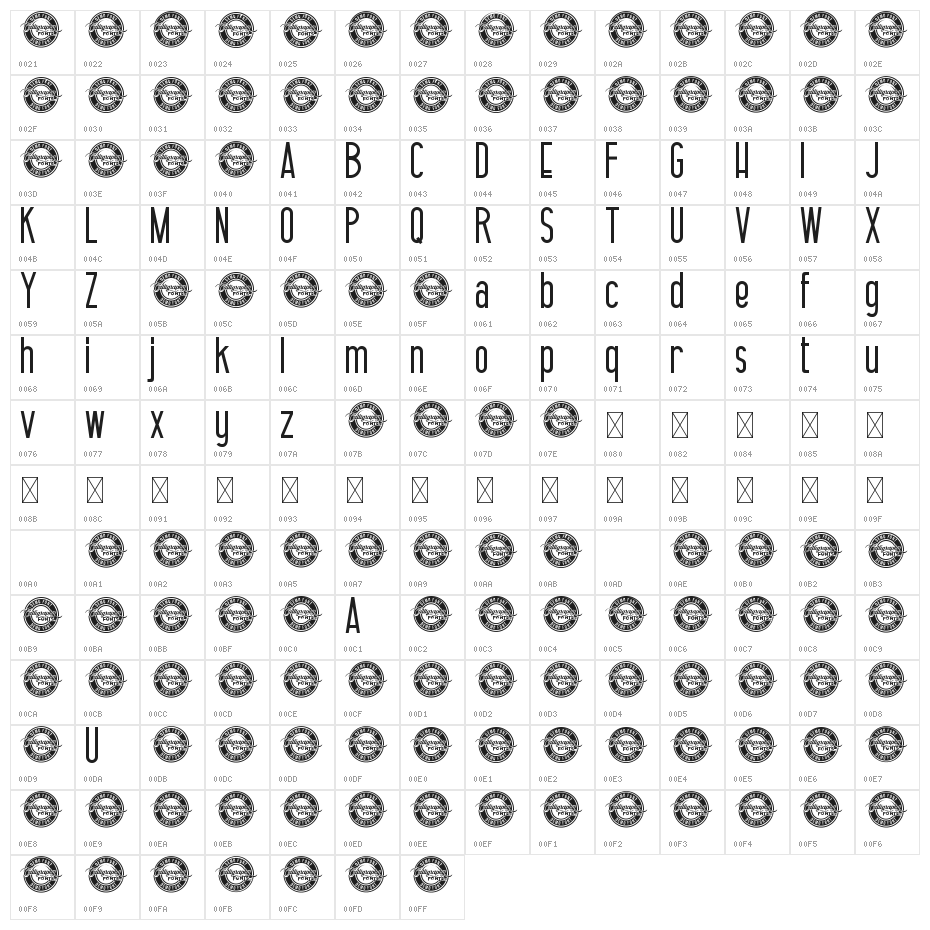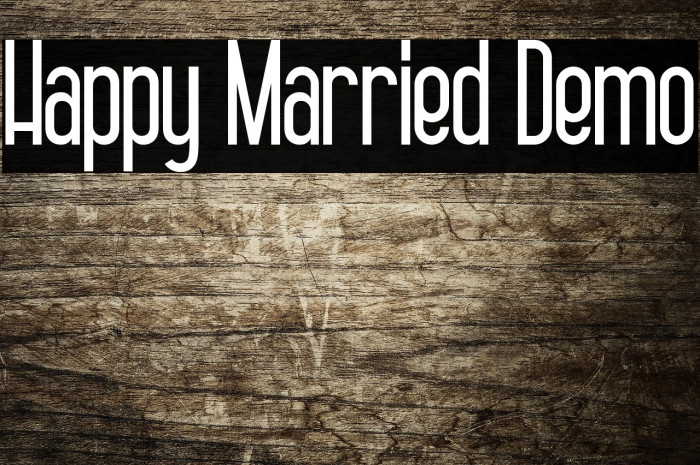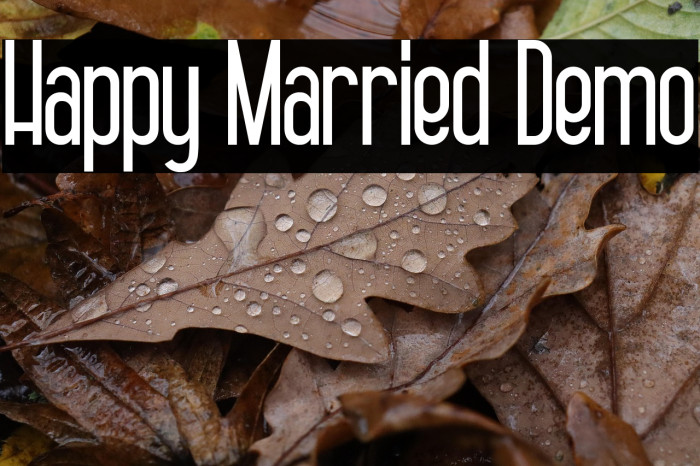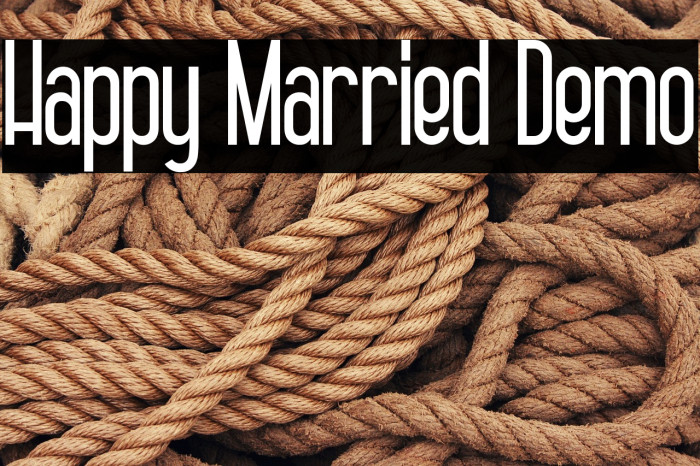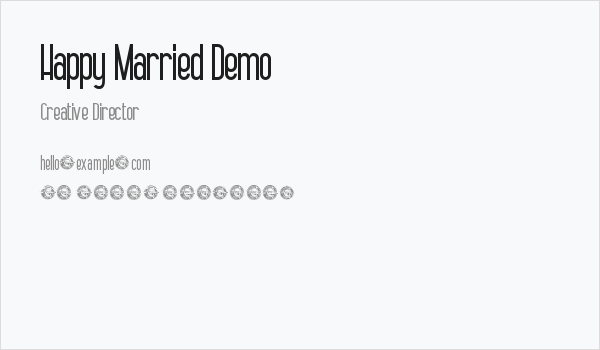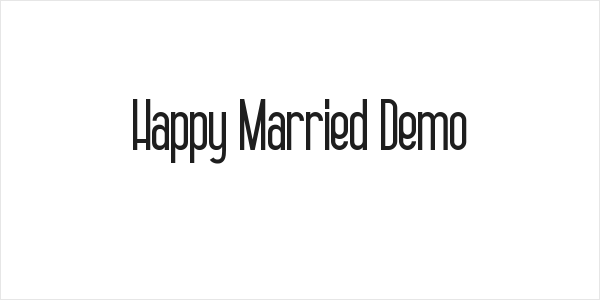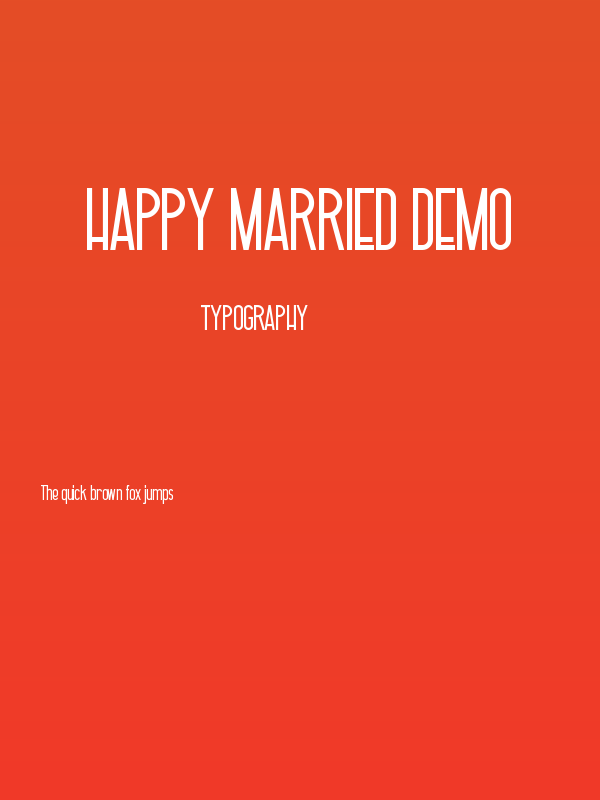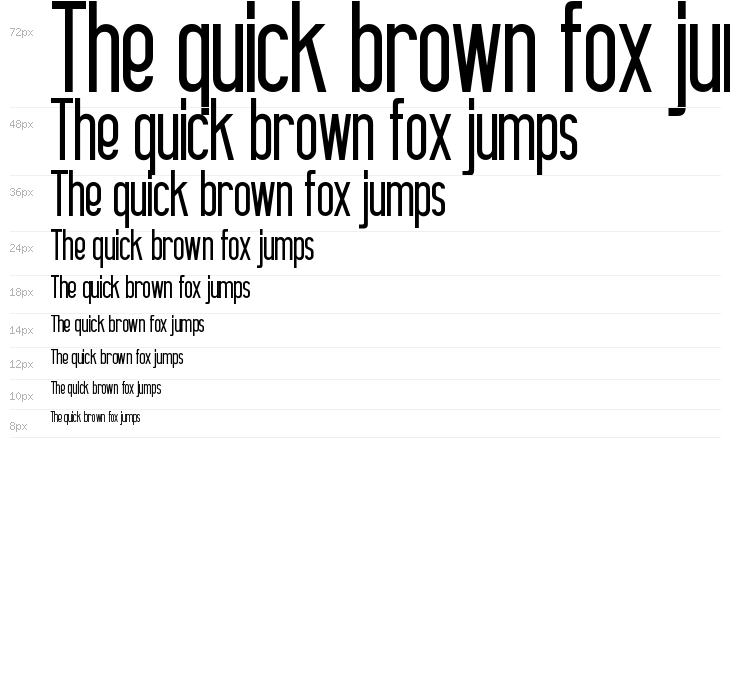
Happy Married Demo Font
Happy Married Demo Description
This font features a tall, narrow design with clean, straight lines and a modern aesthetic. The uppercase letters are elongated, giving them a sleek and sophisticated look, while the lowercase letters maintain a consistent height, providing a balanced appearance. The font's geometric structure is evident in its uniform stroke width, which contributes to its contemporary style. The characters are tightly spaced, enhancing the font's compact and efficient use of space. This typeface is ideal for projects that require a modern and professional touch.
| Proposed Projects | Ideal for branding, advertising, headlines, and editorial design where a modern and professional look is desired. |